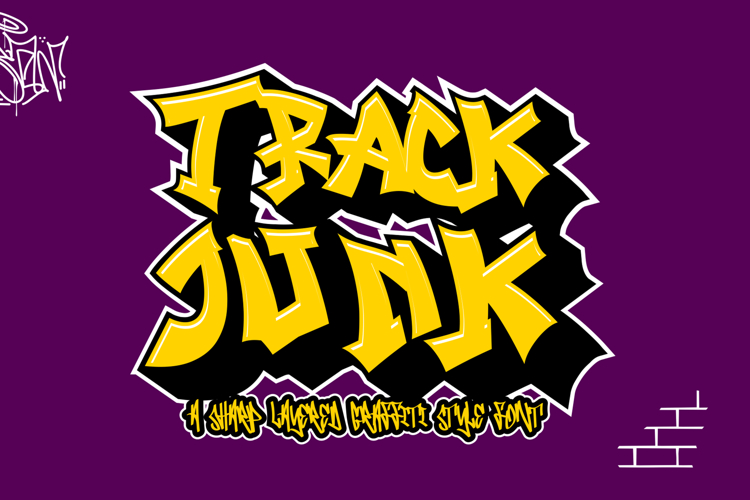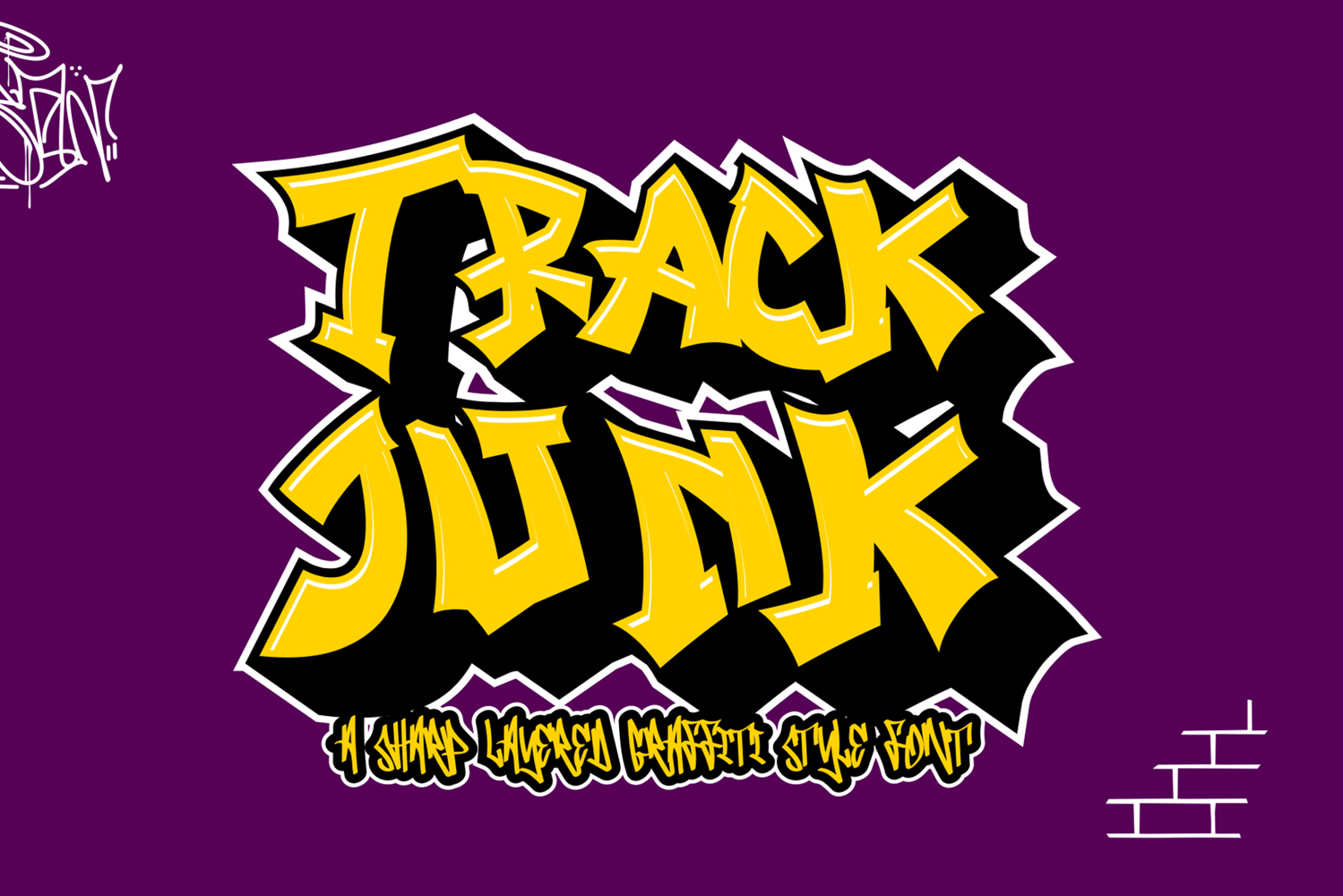
Track Junk - A Sharp Layered Graffiti Style Font
Track Junk is a bold, sharp, and edgy layered graffiti font that brings a raw urban attitude to any project. Its striking letterforms and layered design offer depth and texture, making it perfect for designers looking to create a streetwise, eye-catching aesthetic.
🚧 Edgy Design: With sharp, angular lines and a rugged feel, Track Junk captures the essence of graffiti art, giving your designs a bold and rebellious look. It’s ideal for urban-themed projects, posters, album art, or branding that needs a raw, unpolished edge.
🎨 Versatile Layering: The font’s layered structure allows for customization and creative flexibility, letting you build dynamic compositions with vibrant or subtle effects. Mix and match the layers to achieve unique graffiti-inspired visuals that stand out in any design.
🔥 Bold Impact: Track Junk is designed to make a statement. Its powerful presence and graffiti-inspired style give your text an unmistakable edge, ensuring it grabs attention in any medium.
Add a touch of street art flair to your projects with Track Junk, the ultimate font for making a sharp, rebellious impact.